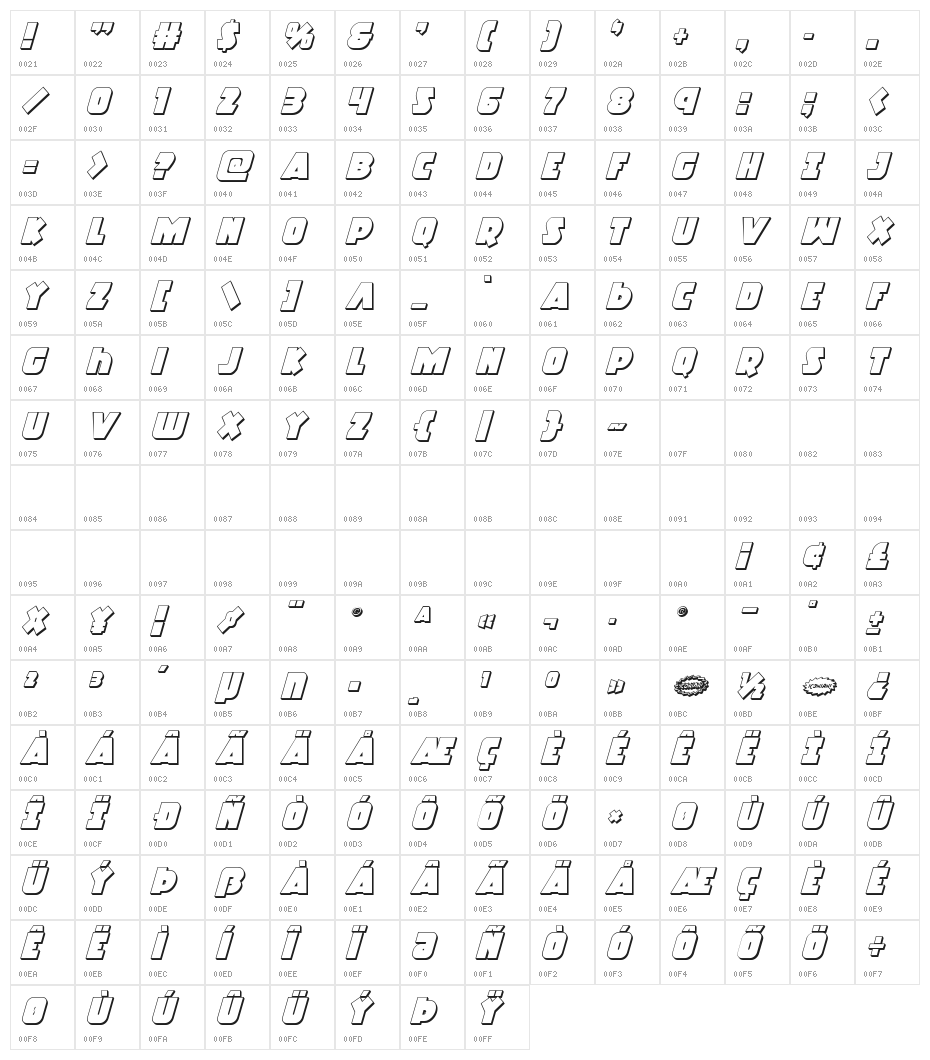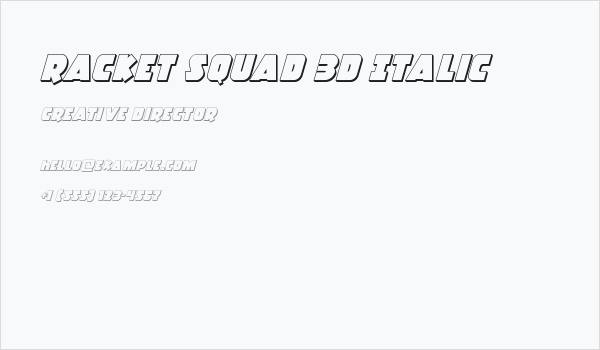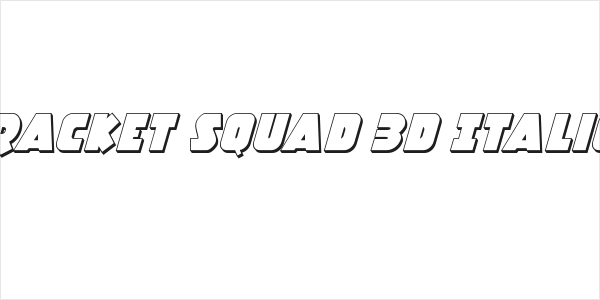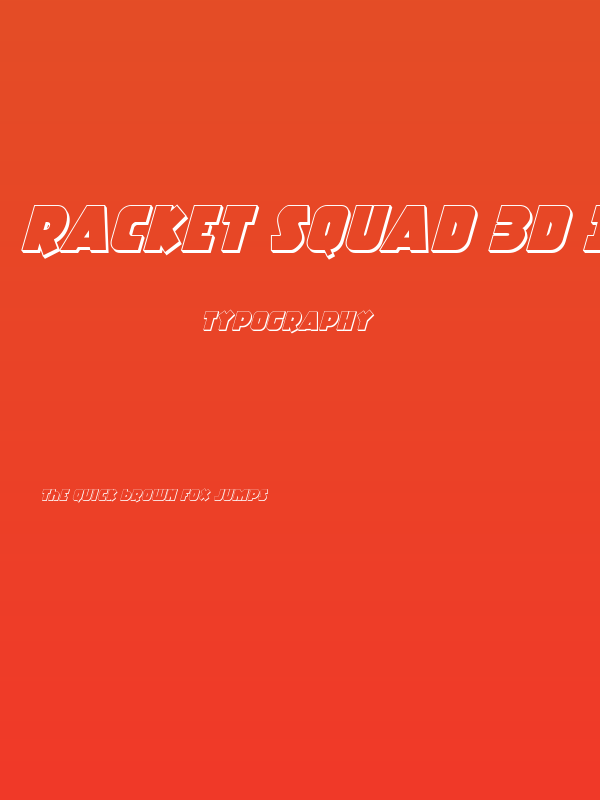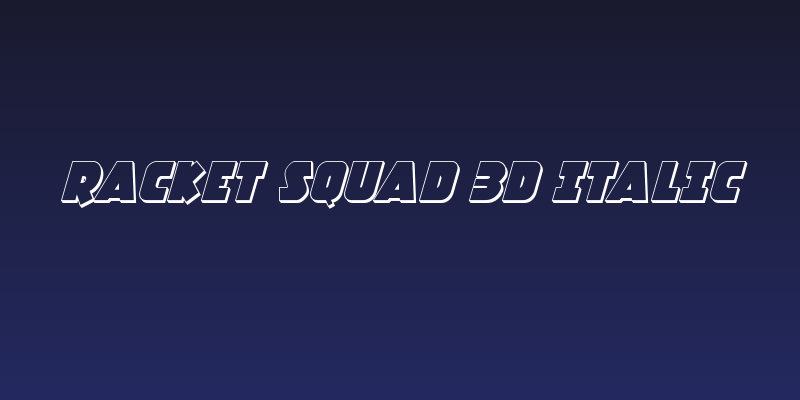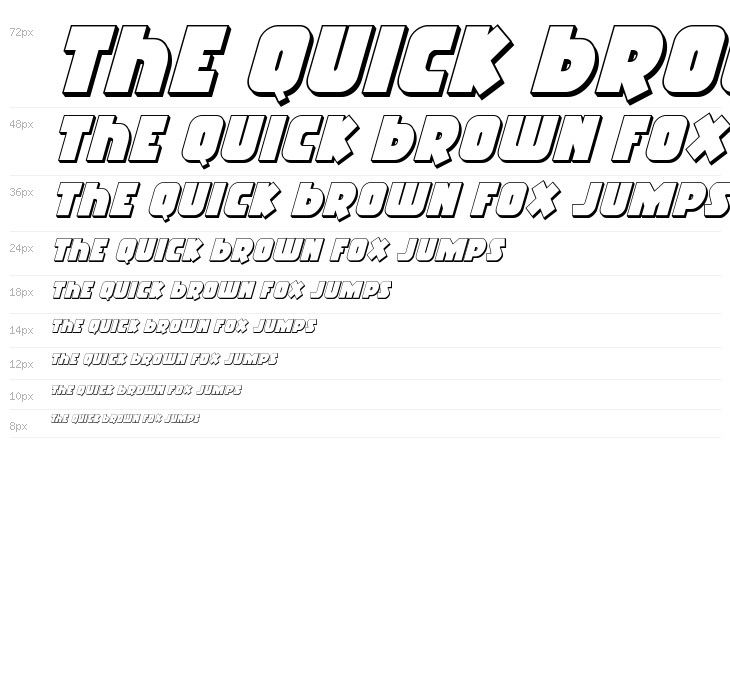
Racket Squad 3D Italic Font
Racket Squad 3D Italic Description
This font features a bold, three-dimensional design with a strong italic slant, giving it a dynamic and impactful appearance. The characters are outlined, adding depth and a sense of movement. The uppercase and lowercase letters maintain a consistent style, with sharp angles and a blocky structure. The numbers and special characters follow the same bold and italicized design, ensuring uniformity across all glyphs. This font is particularly eye-catching and is designed to stand out, making it suitable for projects that require a strong visual presence.
| Proposed Projects | Ideal for posters, headlines, logos, and any design needing a bold, attention-grabbing typeface. |